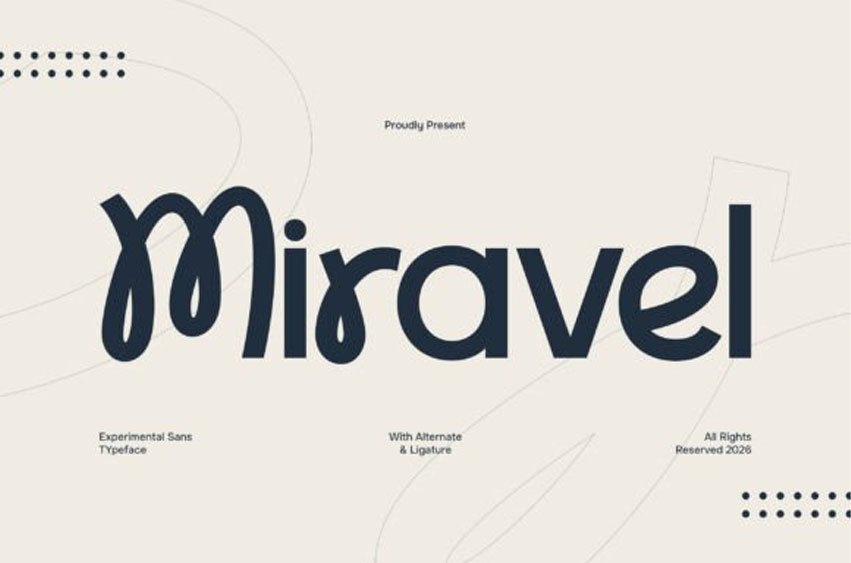
Miravel Font
Miravel Font is an experimental sans typeface that explores clean creativity through unconventional shapes and modern design language.
With its distinctive letterforms, unexpected details, and artistic structure, Miravel delivers a unique visual experience that breaks away from traditional sans serif norms.Designed to stand out, Miravel combines a clean foundation with experimental twists, creating a balance between readability and expressive character.